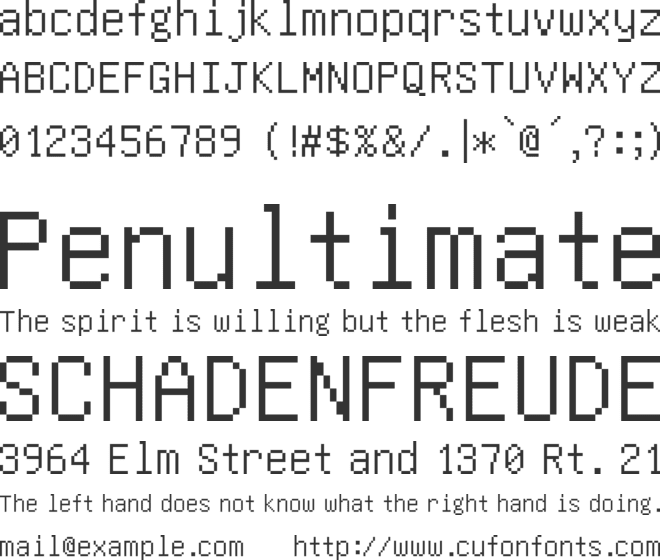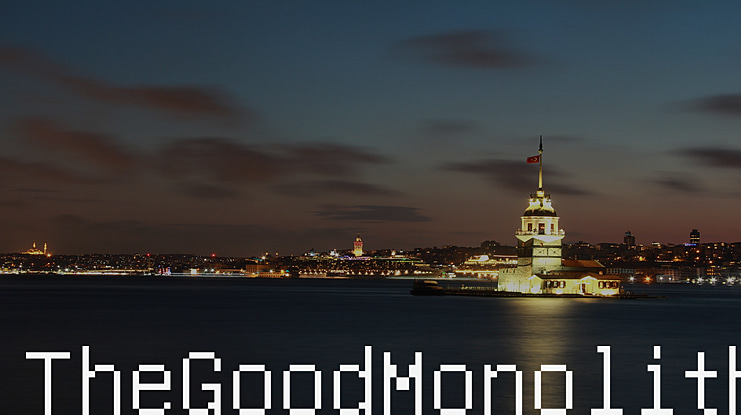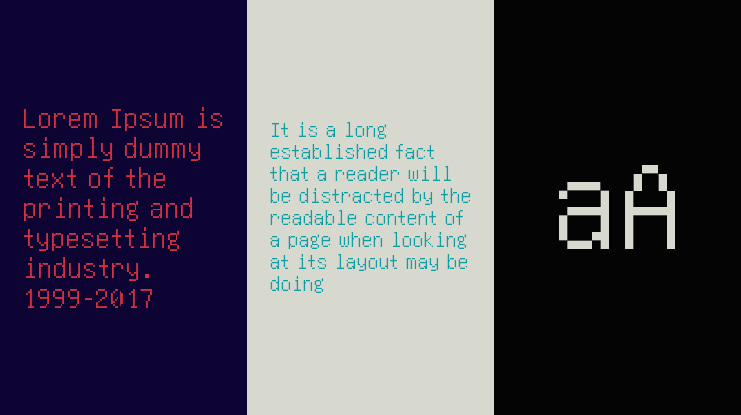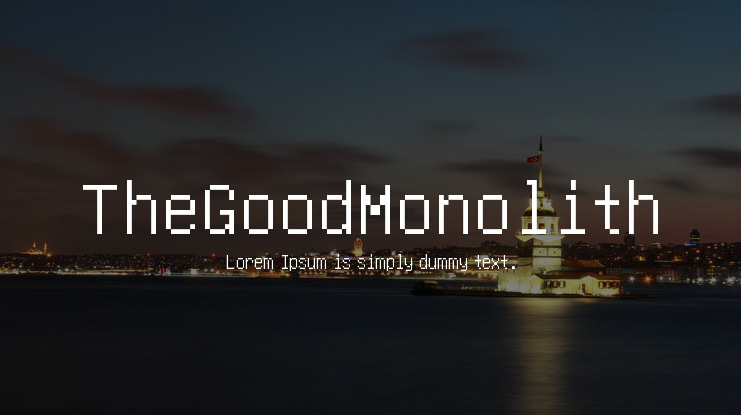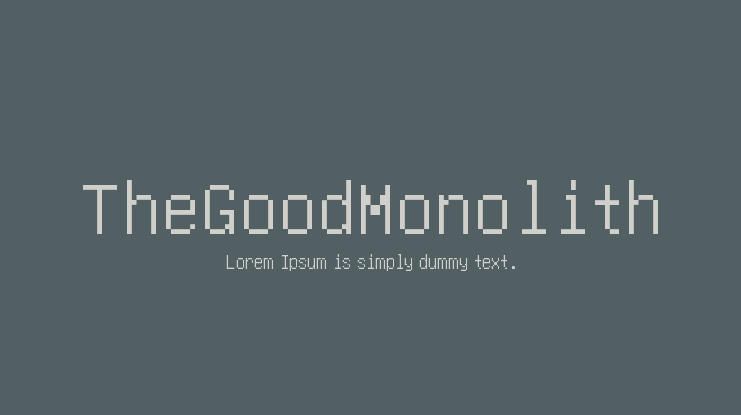
TheGoodMonolith Font
The Good Monolith - 999 glyphs - Symbols - 11 letter modificators - Thai characters - Fullwidth numbers - 7 undefined characters - Ideographic Space - 6 ligatures Based on Unifont, this is a font but it's called...
What are monoliths? A monolith is an large single upright block of stone.